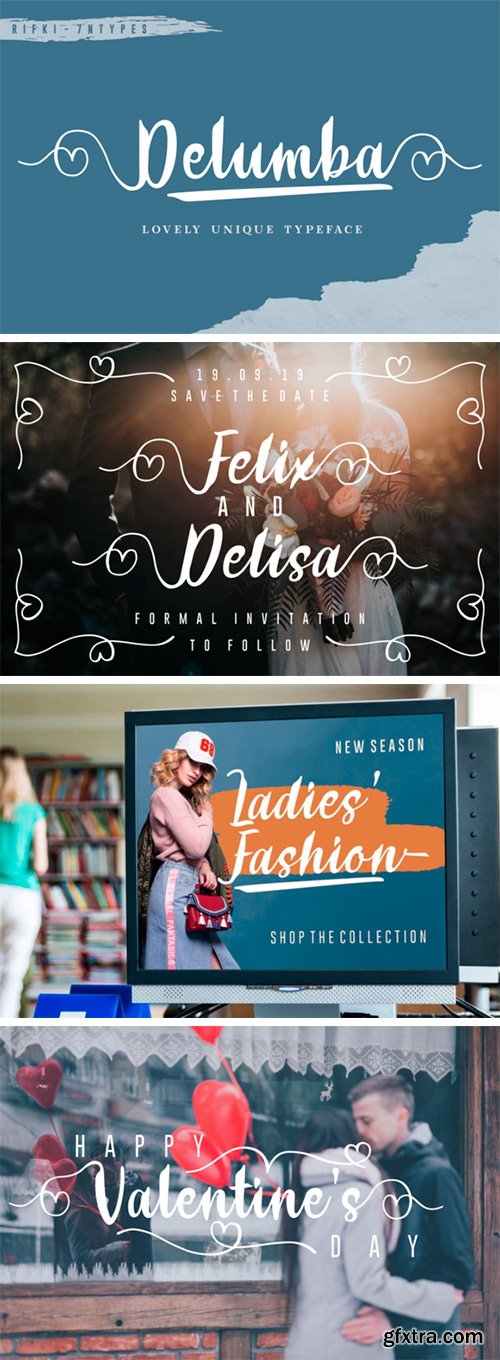
德尔姆巴字体
Delumba Font
The Delumba is an amazing script font. It comes in a regular and italic version, which can be combined together perfectly but are also great as strong stand-alone’s. This bold typeface has a striking, yet elegant style and includes beautiful swashes to add a luxurious feel to your designs.